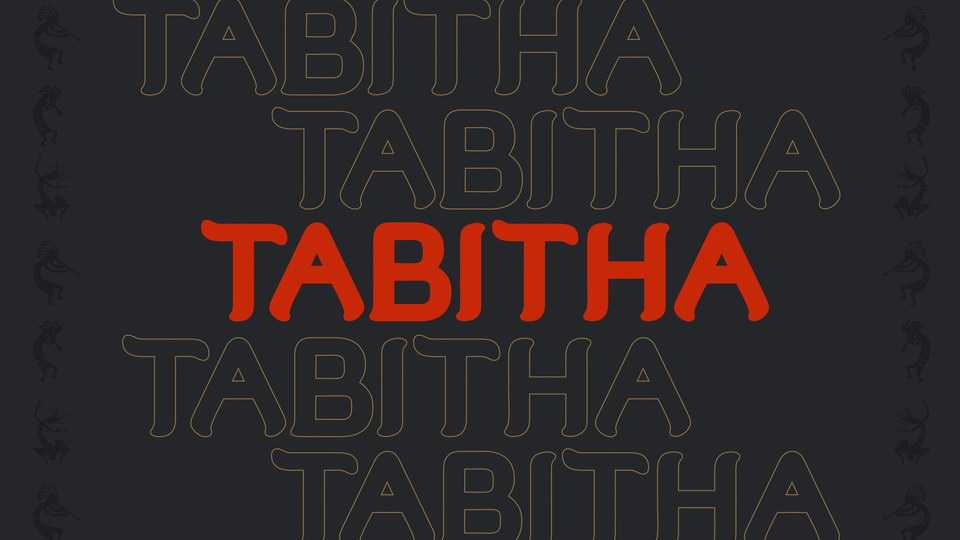
Download Tabitha typeface, a display font family in 15 styles, inspired by beauty, grace and brave women. Tabitha’s style is a mixture of straight lines and curvy and rounded endings, showing the amalgamation of a powerful yet soft and fun loving aspect to it.
Designer: Mandrita Bhattacharyya